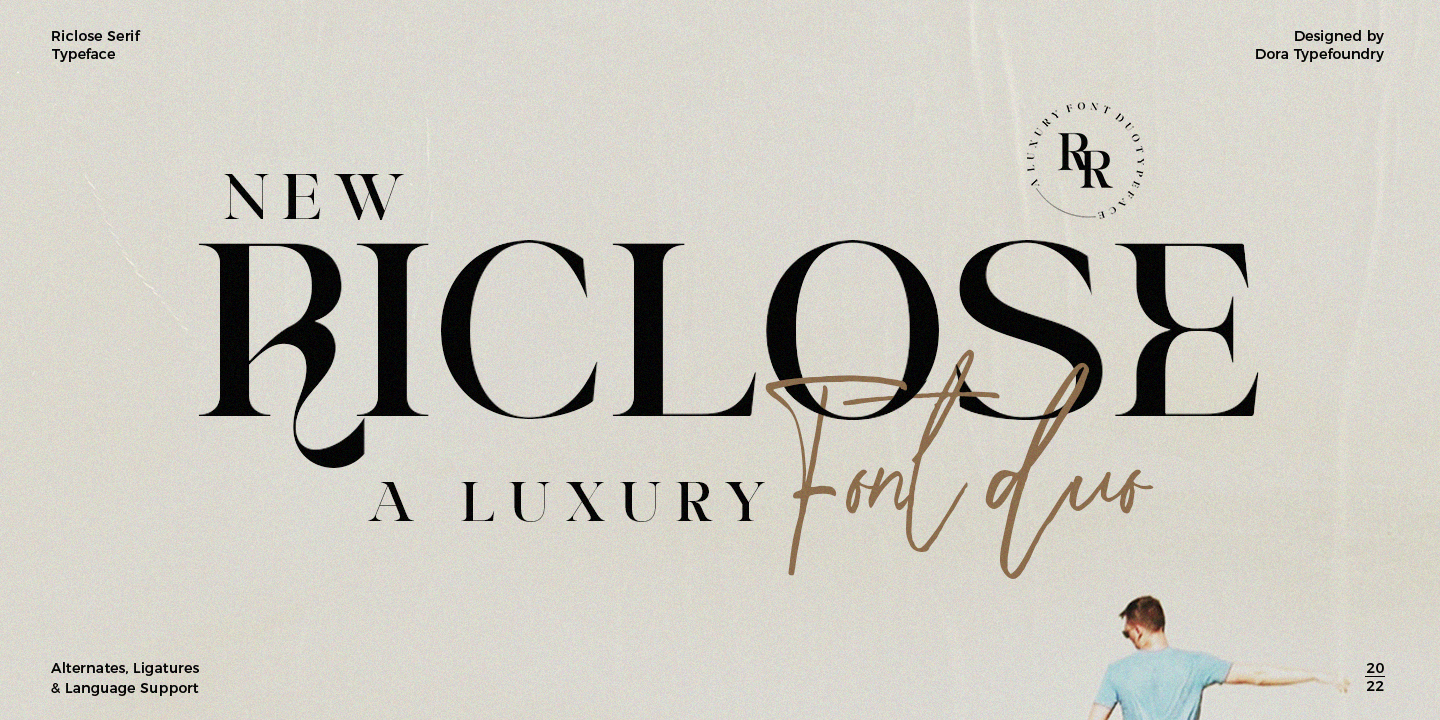
Usage Examples: Riclose Serif Font is ideal for elegant book covers, sophisticated branding, editorial layouts, and luxury packaging designs.
Why It’s Exciting: Its refined serif design with subtle curves and balanced proportions exudes timeless elegance, perfect for high-end, professional projects.
Font Families: Riclose Serif Font includes Regular, Italic, Bold, and ExtraBold variants, offering versatility for diverse creative applications.
Elevate your designs with Riclose Serif Font Free Download! This sophisticated serif typeface, inspired by classic typography, brings a polished and authoritative feel to your projects, making it perfect for print media like magazines, books, or branding materials. Its clean lines and subtle serifs ensure readability while adding a touch of luxury. Download Riclose Serif Font Free Download now to test its elegant style, but secure a commercial license for professional use. With Regular, Italic, Bold, and ExtraBold styles, this font adapts seamlessly to various design needs, enhancing both visual appeal and professionalism. Boost your brand’s presence with this timeless, versatile typeface today!